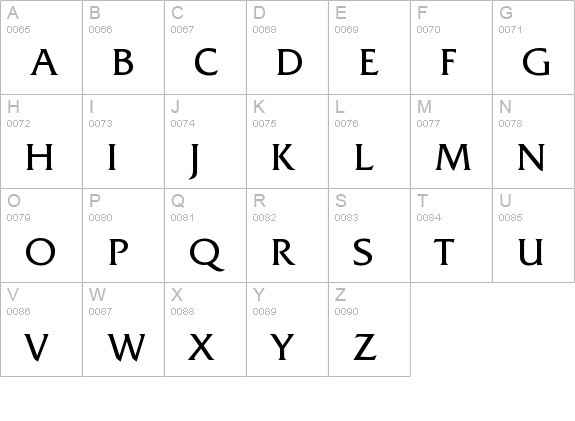
France font is a modern and stylish typeface that exudes elegance and sophistication. With its clean lines and sleek design, this font is perfect for a wide range of design projects, from branding to editorial work. The versatility of France font allows it to be used in both digital and print media, making it a valuable addition to any designer's toolkit. What sets France font apart is not only its aesthetic appeal but also its accessibility. This premium font is available for free download at FontsMarket.com, allowing designers to elevate their projects without breaking the bank. Whether you're working on a logo, website, or marketing materials, France font is sure to make a lasting impression with its timeless charm and contemporary flair. Download it today and unleash your creativity with this stunning typeface.